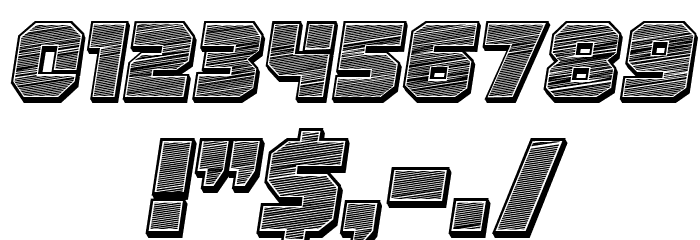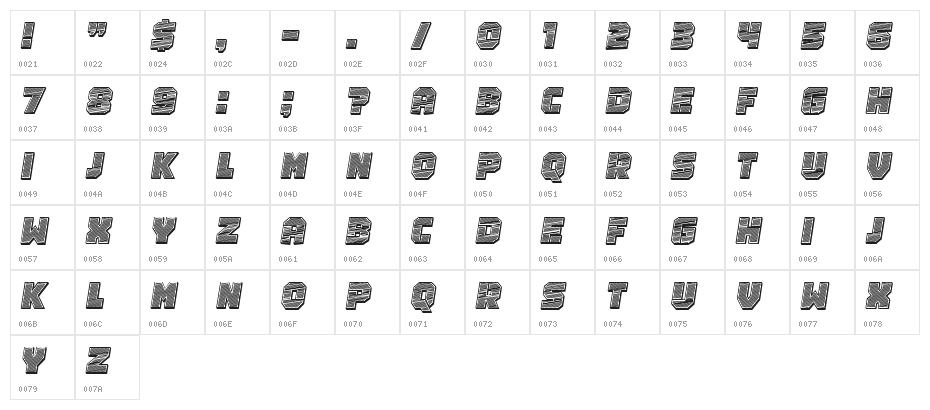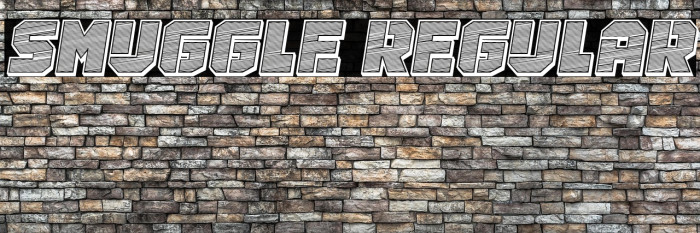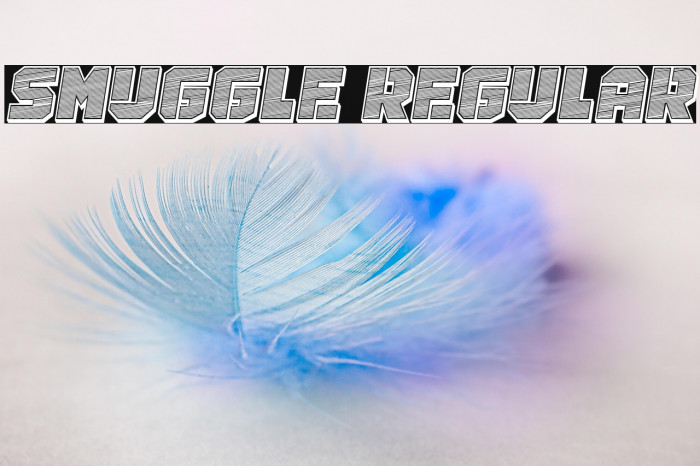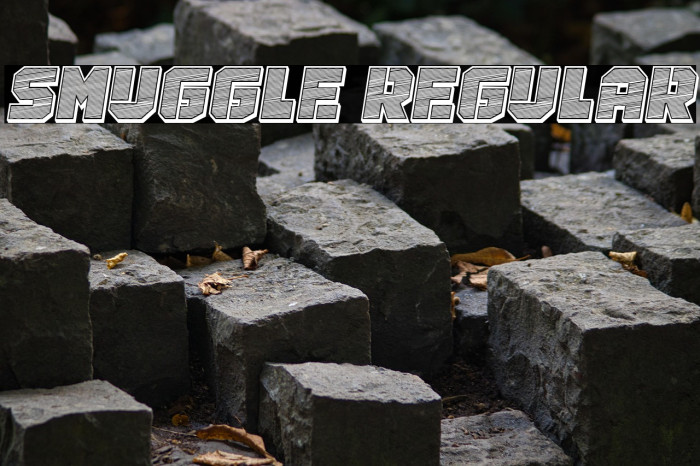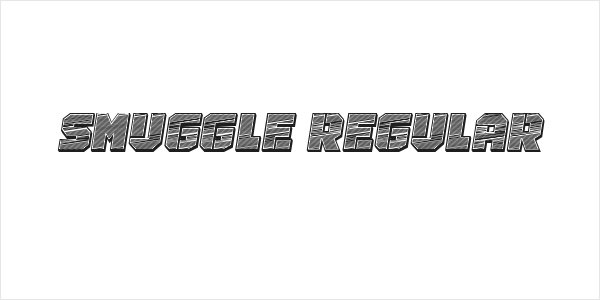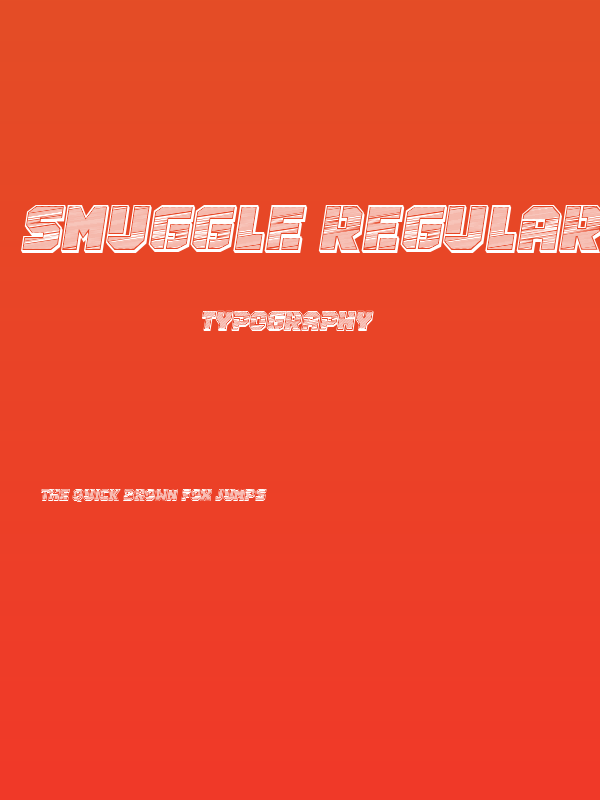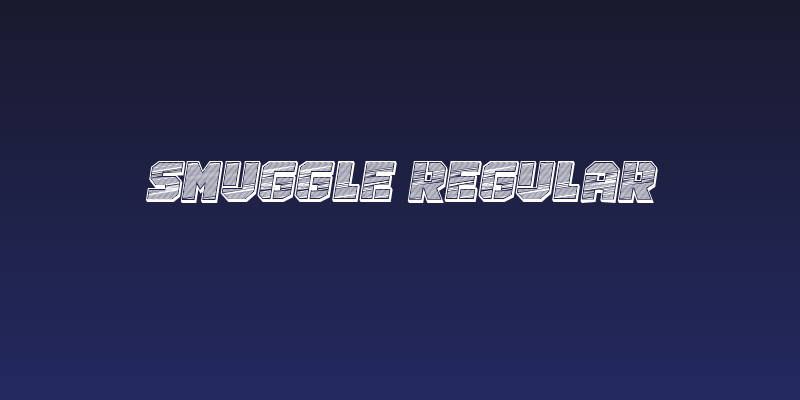
Smuggle Regular Font
Smuggle Regular Description
This font features a bold, three-dimensional design with a distinct striped pattern running diagonally across each character. The letters are uppercase and have a blocky, geometric shape, giving them a strong and impactful appearance. The numbers and special characters follow the same design, maintaining consistency throughout. The font's unique style makes it stand out, with a modern and edgy feel that is both eye-catching and memorable.